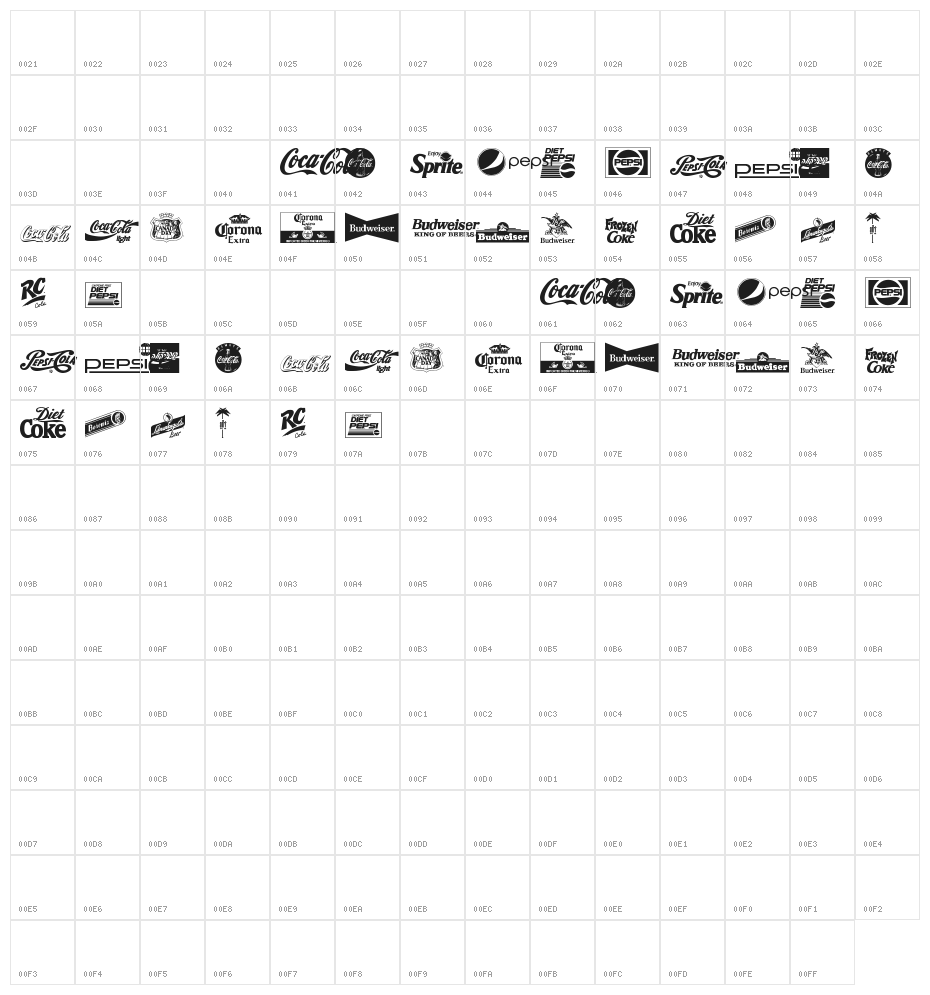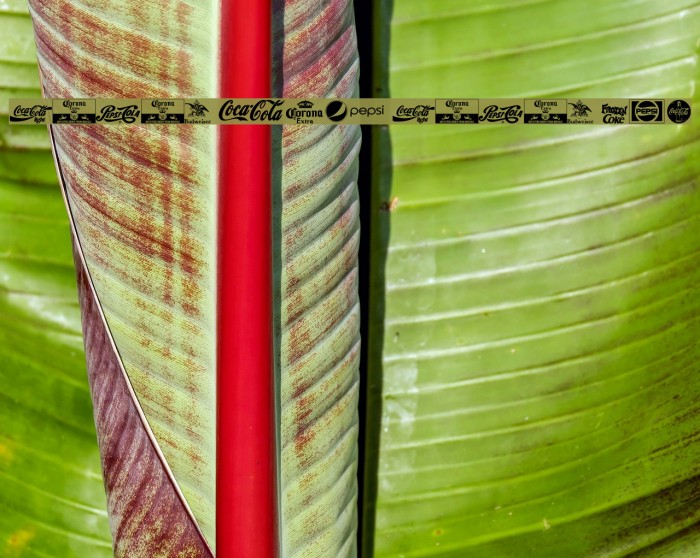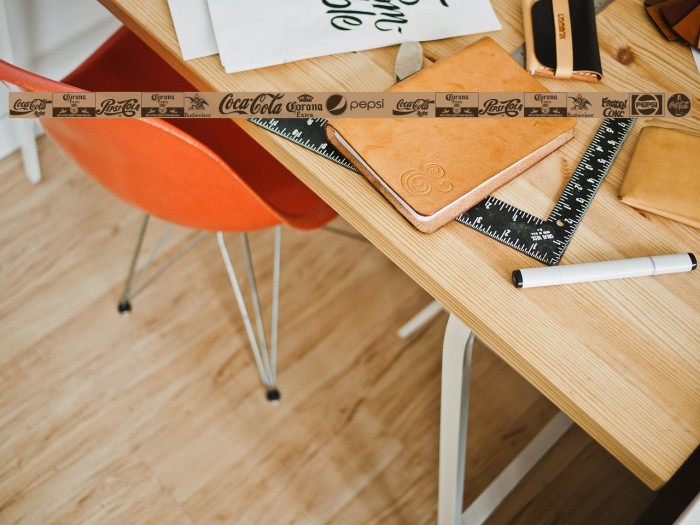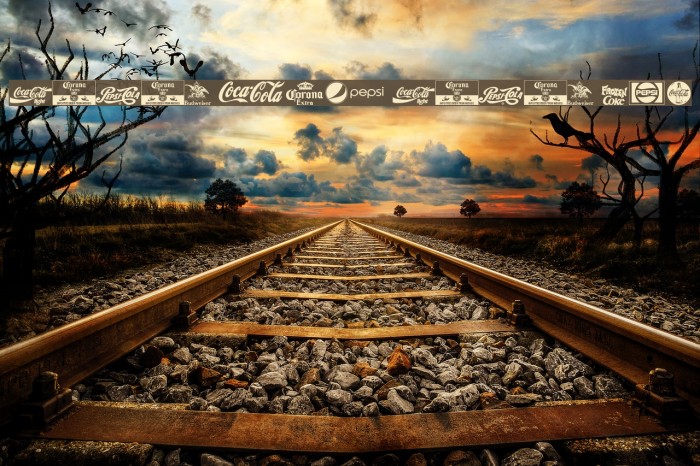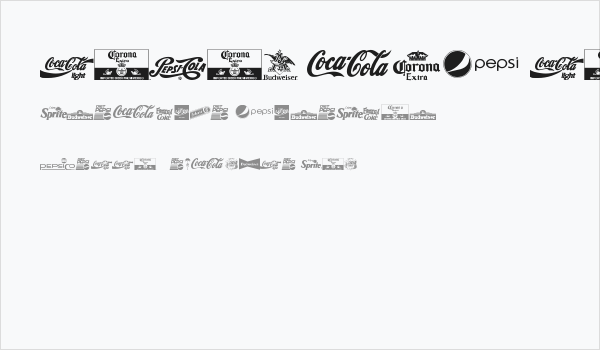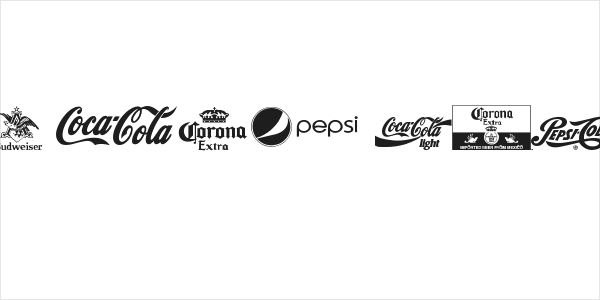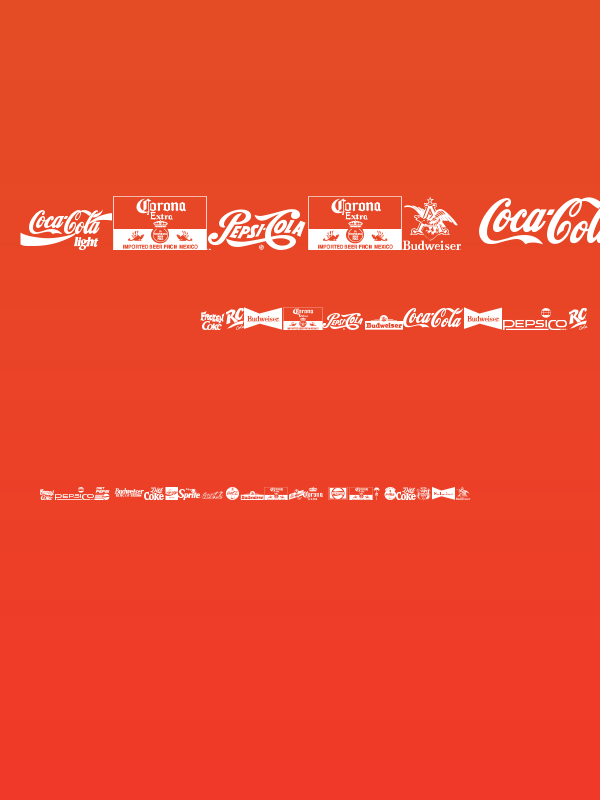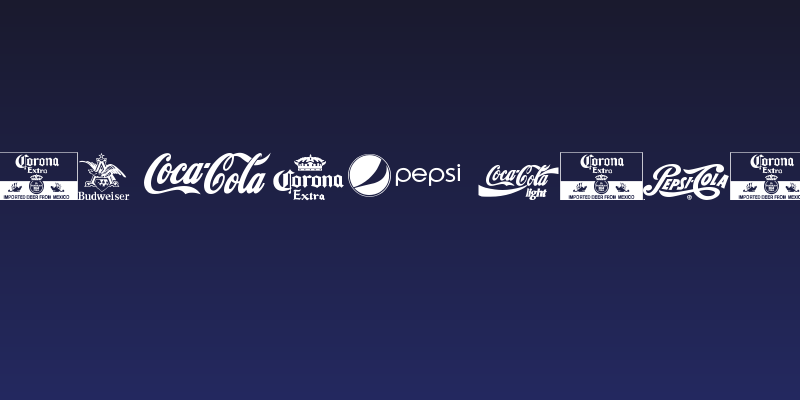
logos and logos tfb Font
logos and logos tfb Description
A decorative display font featuring stylized recreations of well-known beverage and beer brand logos, each letter or character mimicking the original logo's unique design elements, including custom lettering, icons, and graphic embellishments.
| Overall Style | Decorative, Pop Culture, Novelty |
| Use Case | Logos, Posters, Themed Graphics, Parody Art |
| Proposed Projects | Brand parodies, themed party invitations, novelty posters, pop culture artwork, fan projects. |